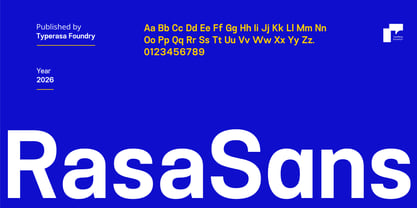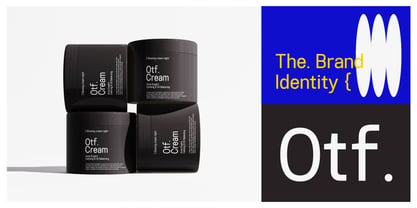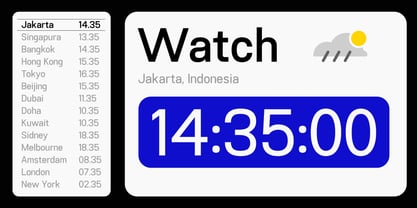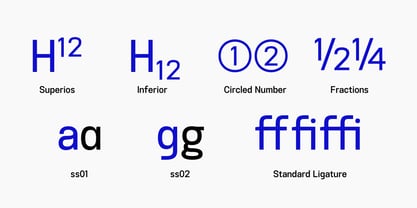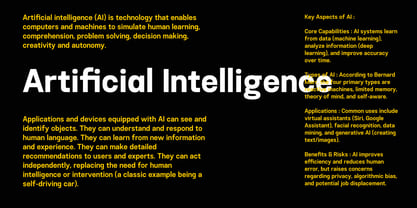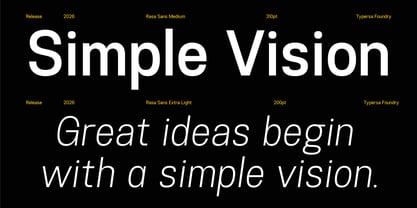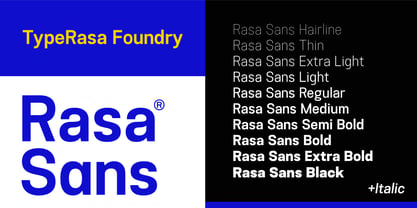
Rasa Sans
by Typerasa
The Rasa Sans Font Family was designed by Rizky Herdii and published by Typerasa. Rasa Sans contains 20 styles and family package options. More about this family
Rasa Sans is a clean and modern sans-serif typeface designed for clarity, versatility, and contemporary visual communication. Built with balanced proportions and refined geometric forms, it offers a professional appearance that works beautifully across both digital and print environments. With a wide range of weights from Hairline to Black, Rasa Sans provides the flexibility needed for modern design systems. The lighter styles deliver an elegant and minimal feel, while the heavier weights create strong and confident headlines. This versatility makes it suitable for branding, editorial layouts, user interfaces, corporate design, and product packaging. Carefully crafted letterforms, open shapes, and consistent spacing ensure excellent readability at both large display sizes and smaller text settings. Its neutral yet distinctive character allows designers to create clean, structured, and timeless visual compositions. Rasa Sans is built on a simple idea: great design begins with a clear vision. The result is a modern typeface that feels minimal, professional, and highly functional. Perfect for: Branding, Editorial Design, UI/UX, Corporate Identity, Advertising, Packaging, and Digital Interfaces.
Designers: Rizky Herdii
Foundry: Typerasa